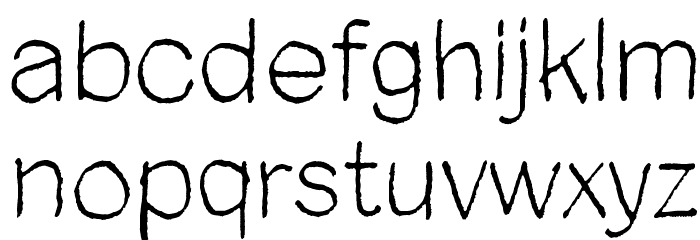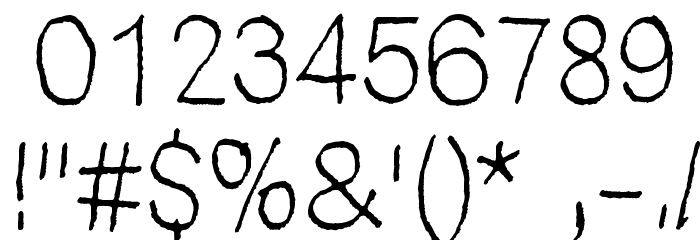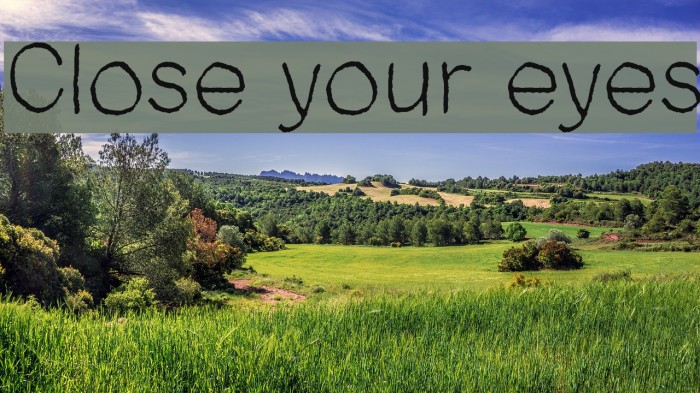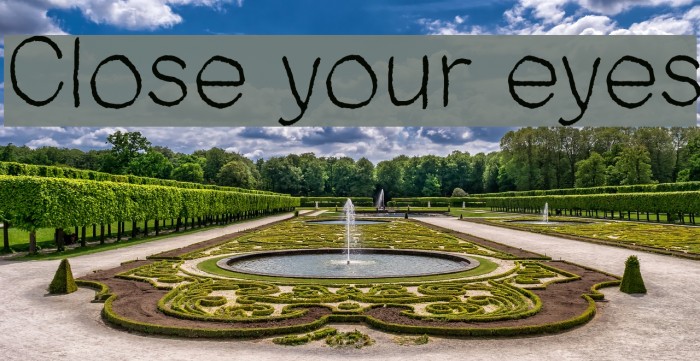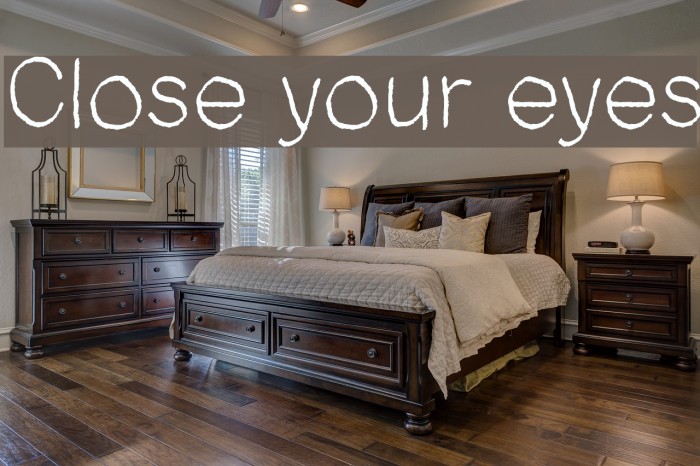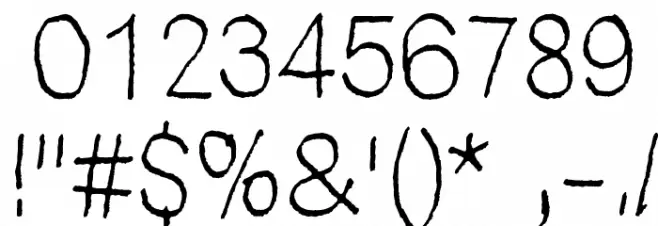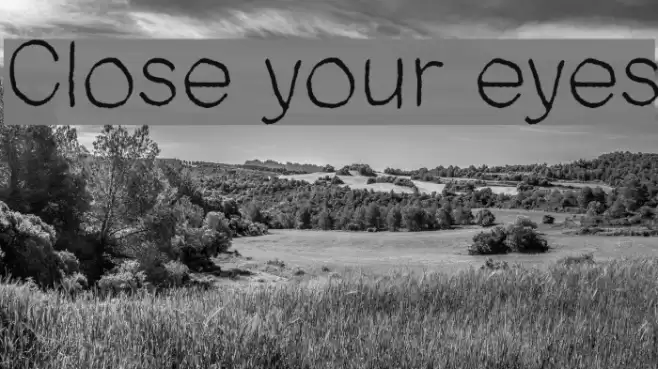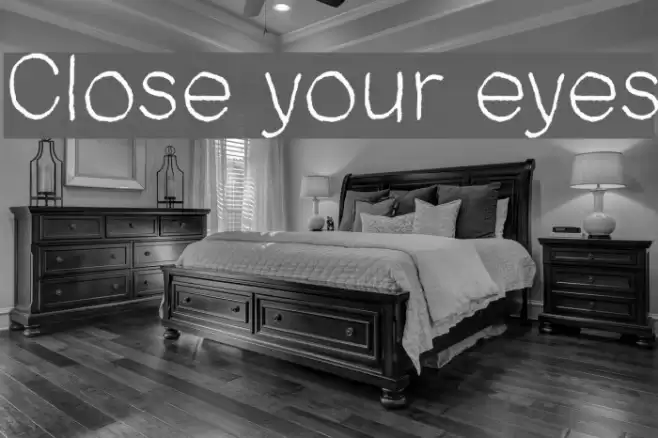
Close your eyes Font
This font exhibits a playful, handwritten style with a casual and organic feel. The characters are slightly irregular, giving them a natural and approachable appearance. The strokes are consistent in width, contributing to a uniform look across the alphabet. The uppercase and lowercase letters maintain a cohesive design, with rounded edges and a slight slant that adds to the informal charm. Numbers and special characters are crafted with the same attention to detail, ensuring readability and aesthetic harmony. This font is ideal for projects that require a personal touch, such as invitations, greeting cards, or creative branding materials.
A playful, handwritten font with a casual and organic feel.
- Proposed Projects: Ideal for invitations, greeting cards, and creative branding materials.
- Overall Style: Casual